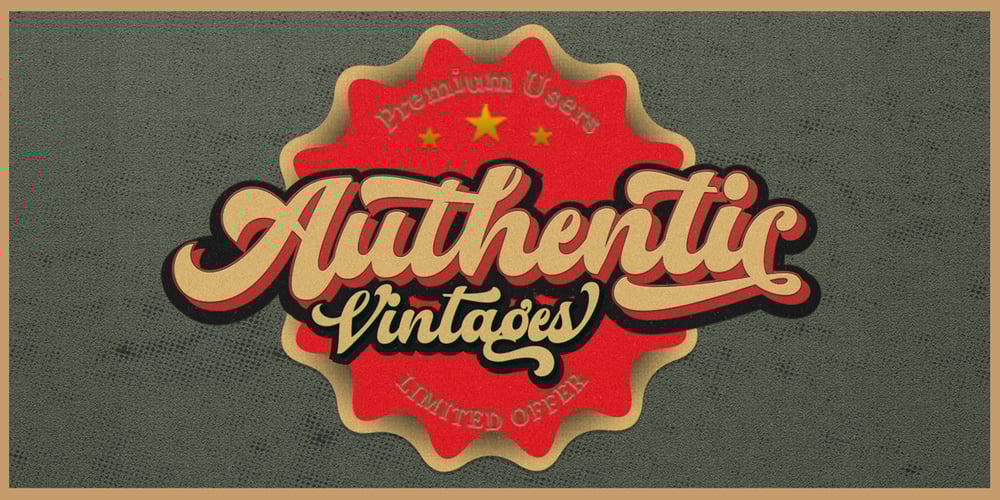
Nigthwel Font Family was designed by Akmal Yusar and published by Picatype. Nigthwel contains 3 styles and family package options. Nigthwel Script is inspired by retro style and combination with Hand Lettering style. Nigthwel has many OpenType features like a stylistic alternatives, stylistic sets, ligatures and swash so you can mix and match like a you want. Nigthwel Script is good for logotype, poster, badge, book cover, t-shirt design, handwritten quotes, product packaging, header, poster, merchandise, social media & greeting cards. To enable the OpenType Stylistic alternates, you need a program that supports OpenType features such as Adobe Illustrator CS, Adobe Indesign & CorelDraw X6-X7, Microsoft Word 2010 or later versions. How to access all alternative characters, using Windows Character Map with Photoshop: https://www.youtube.com/watch?v=Go9vacoYmBw How to access all alternative characters using Adobe Illustrator: https://www.youtube.com/watch?v=XzwjMkbB-wQ Nigthwel Script is coded with PUA Unicode, which allows full access to all the extra characters without having special designing software. Mac users can use Font Book , and Windows users can use Character Map to view and copy any of the extra characters to paste into your favourite text editor/app. Thanks so much for looking and please let me know if you have any questions.